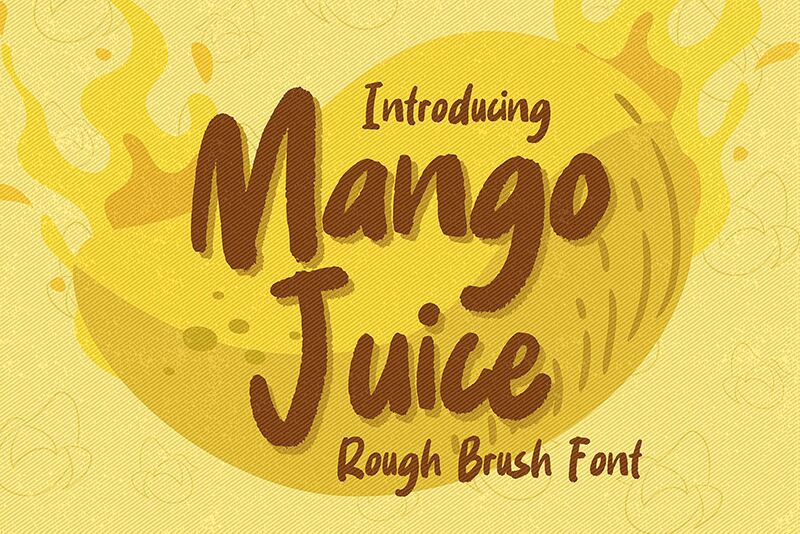
Mango Juice
Discover Mango Juice, a semi-bold, semi-condensed brush font that captures the essence of spontaneous artistry. Designed by Gassstype, this font embodies the modern rough brush style with dramatic movement and casual flair. Its unique texture is ideal for injecting authenticity and fun into your creative endeavors.
Whether you're crafting eye-catching labels, composing bold posters, or seeking to enhance your project with a touch of modernity, Mango Juice is versatile enough to elevate any design. It shines in branding, packaging, greeting cards—anywhere you need a personal touch. With its suitability for an array of applications like websites, photography overlays, and scrapbooking, Mango Juice promises to be an indispensable asset in every designer's toolkit. Add energy and character to your work with this dynamic font that’s as refreshing as its name suggests.